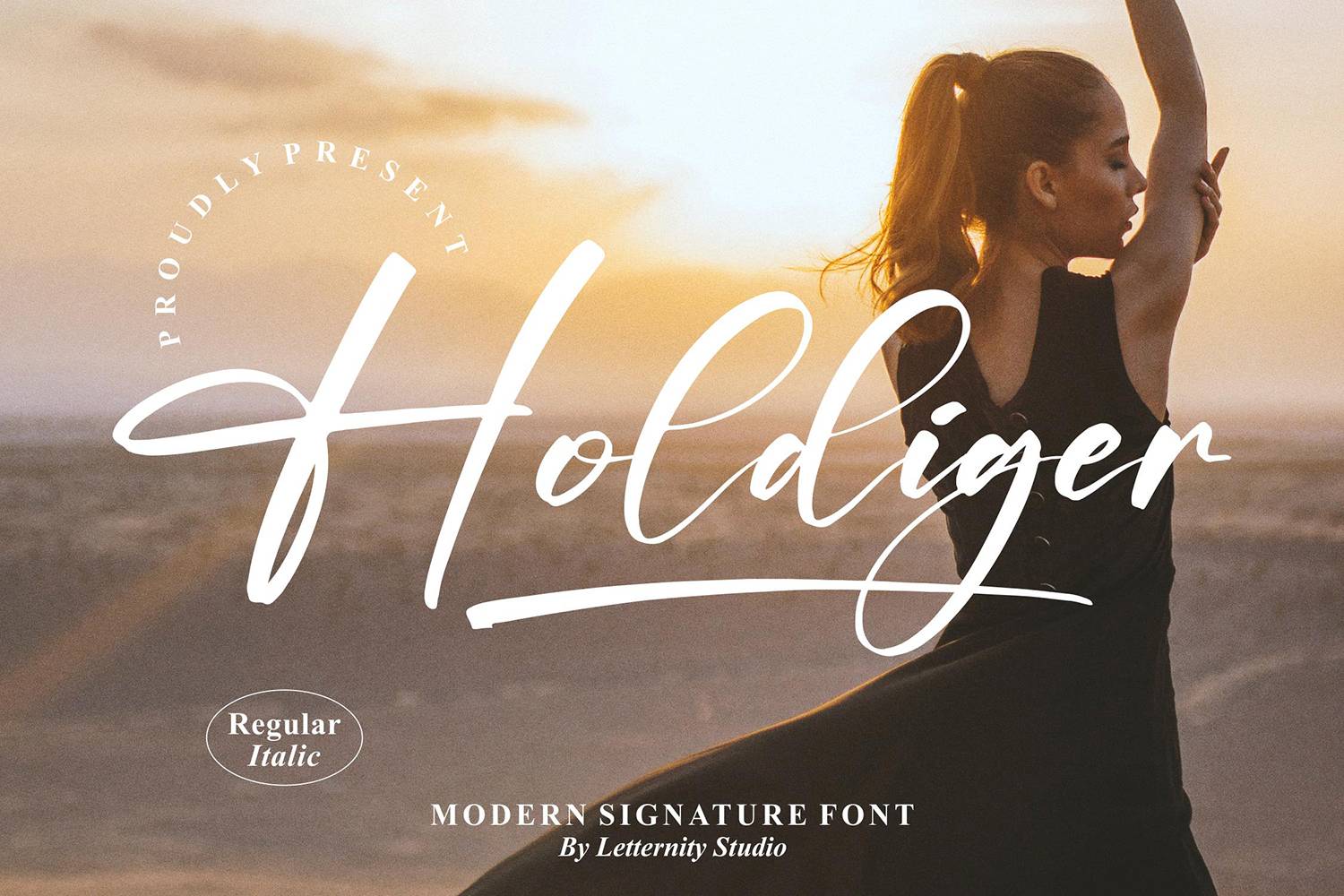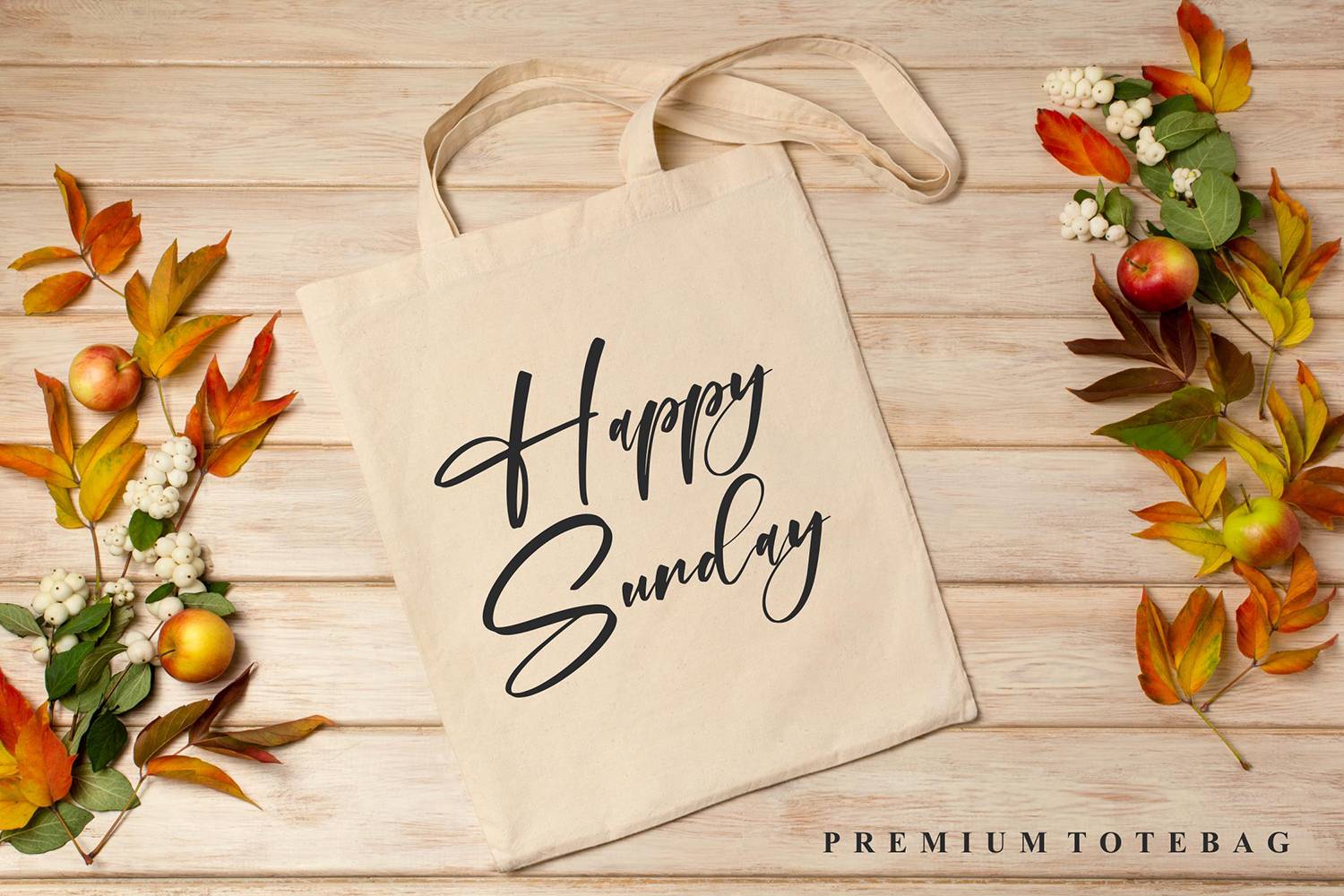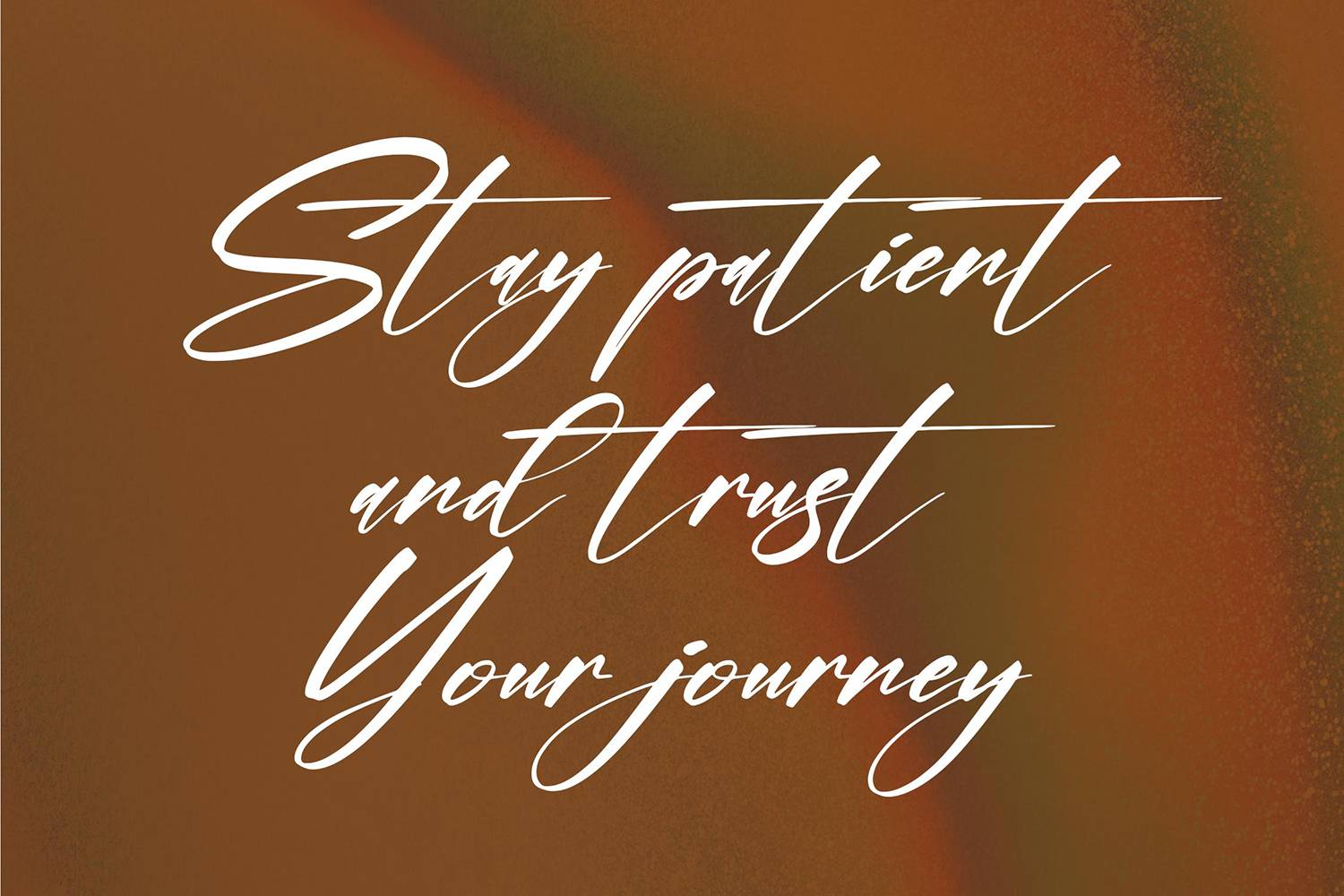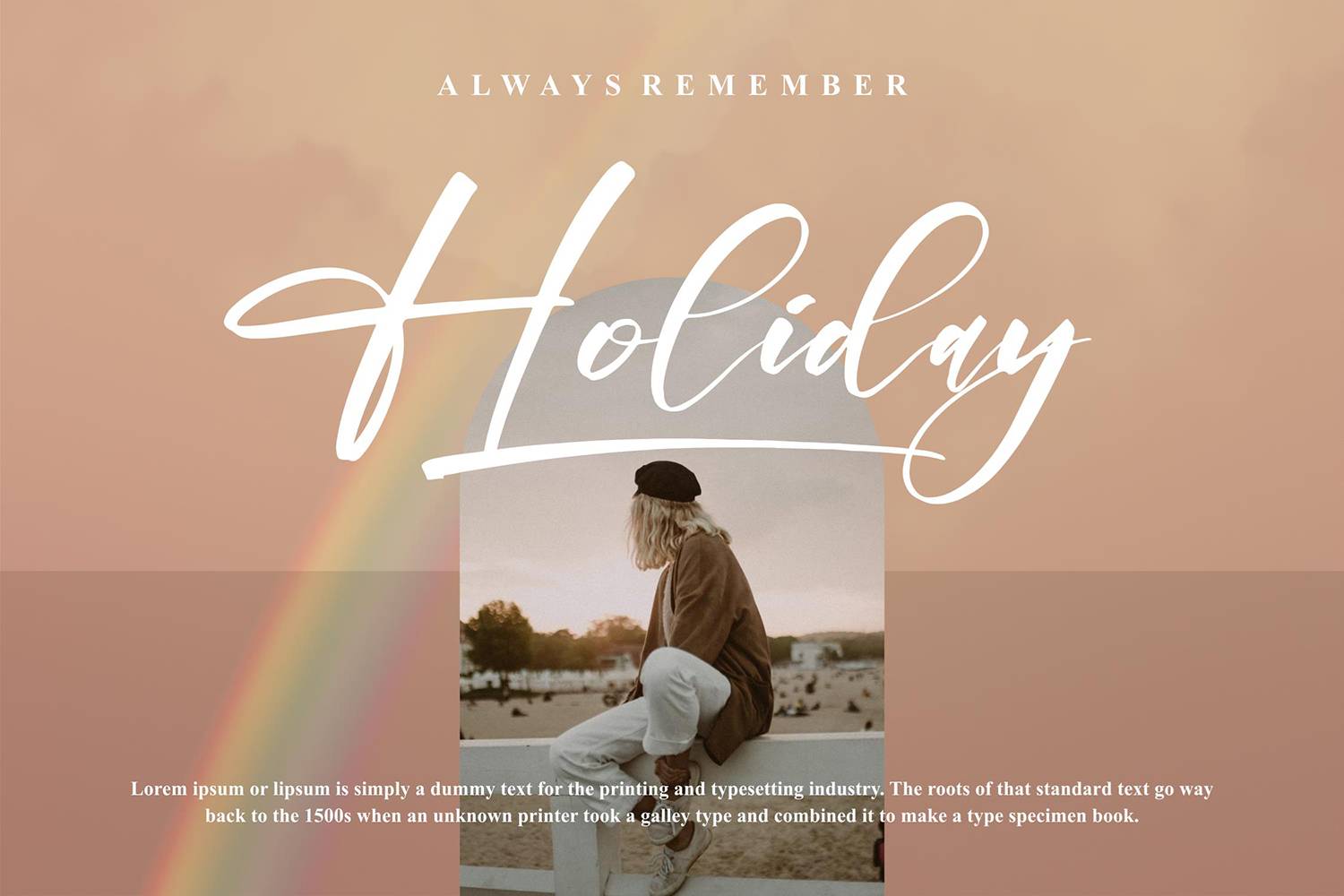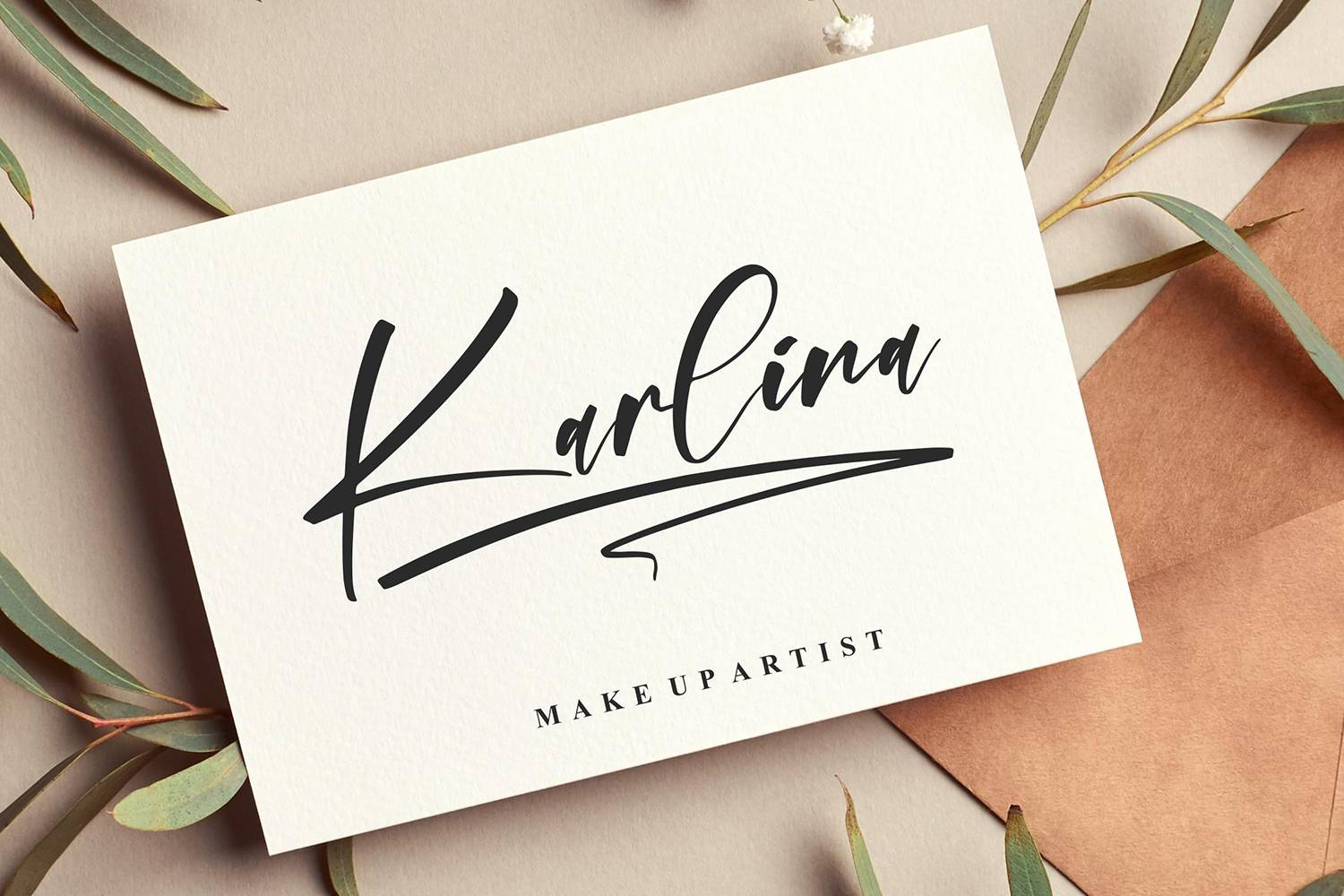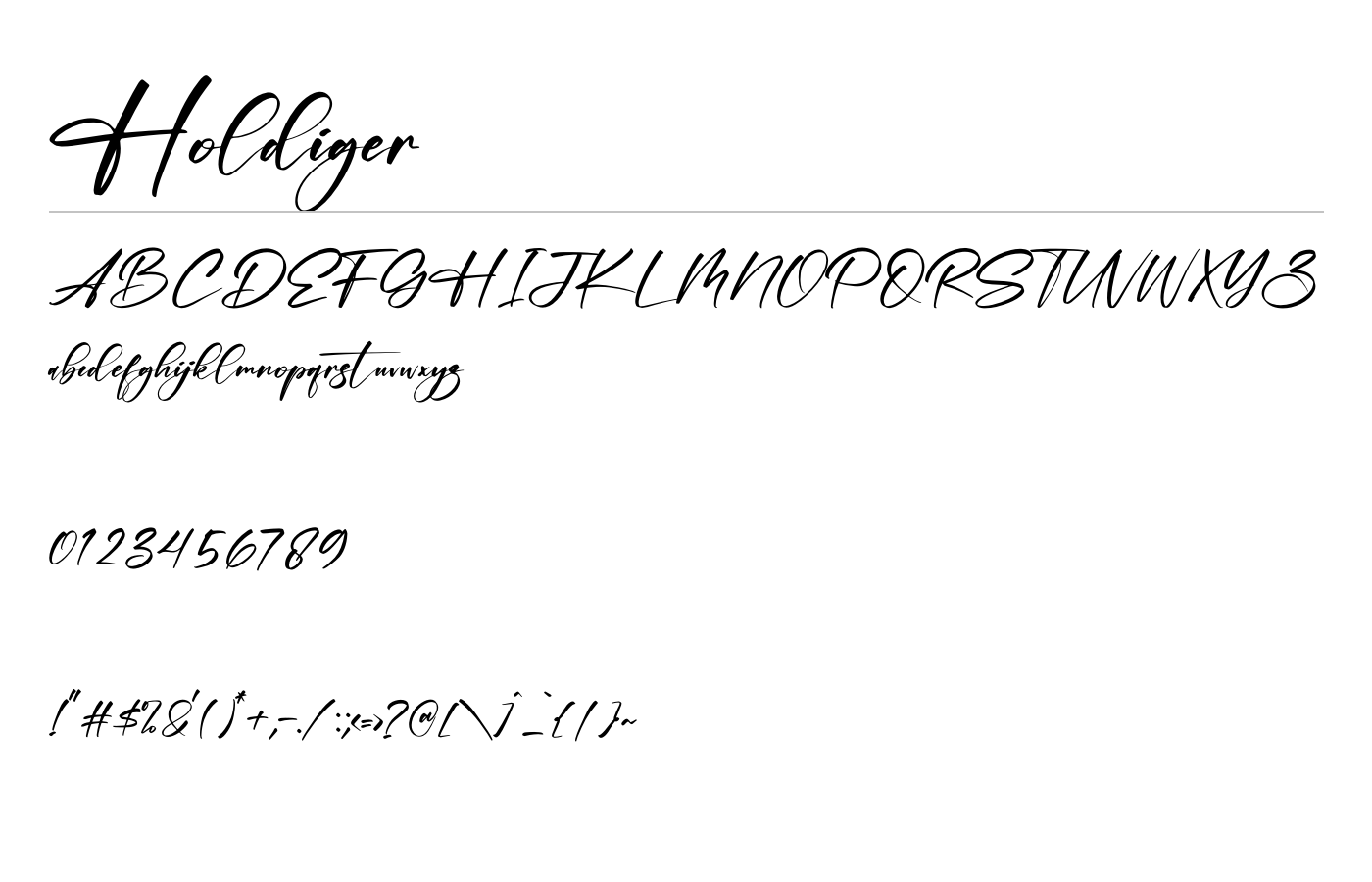
Holdiger is a stylish script font with elegant, flowing strokes that convey a modern yet personal touch. Its light weight and slightly condensed letterforms make it perfect for sophisticated branding, invitations, and creative headlines where a delicate, handcrafted feel is desired. This font shines in luxury and fashion contexts, adding a touch of refinement while maintaining readability.
Holdiger Font
About Holdiger Font